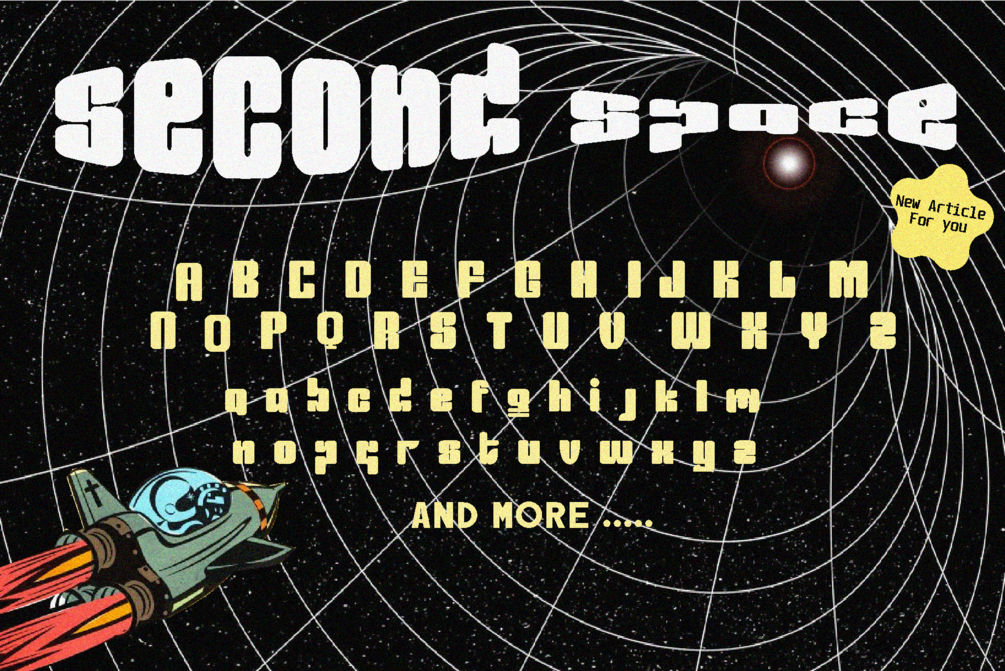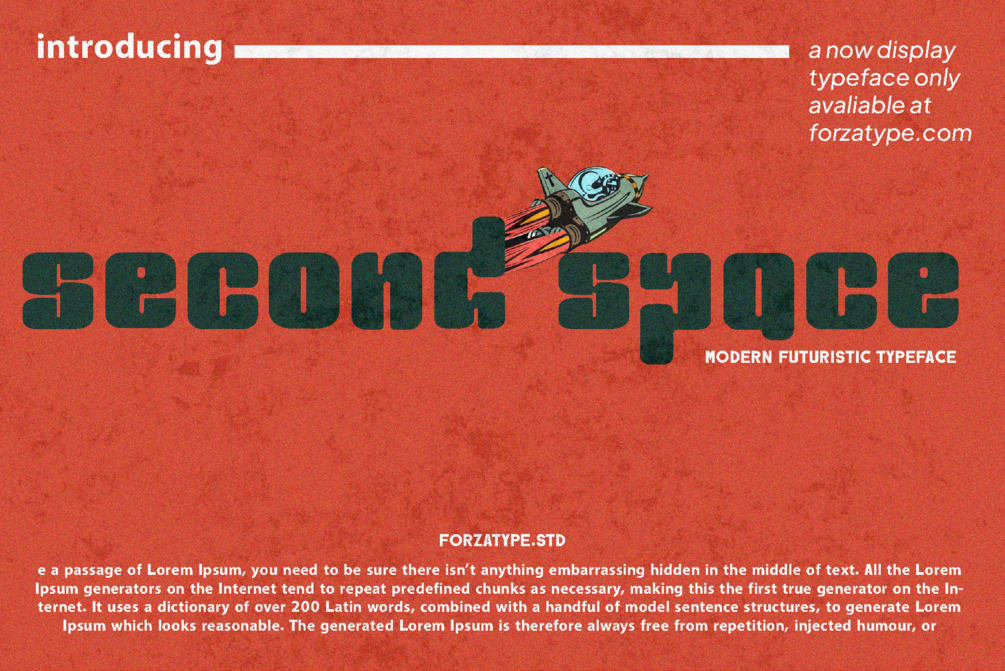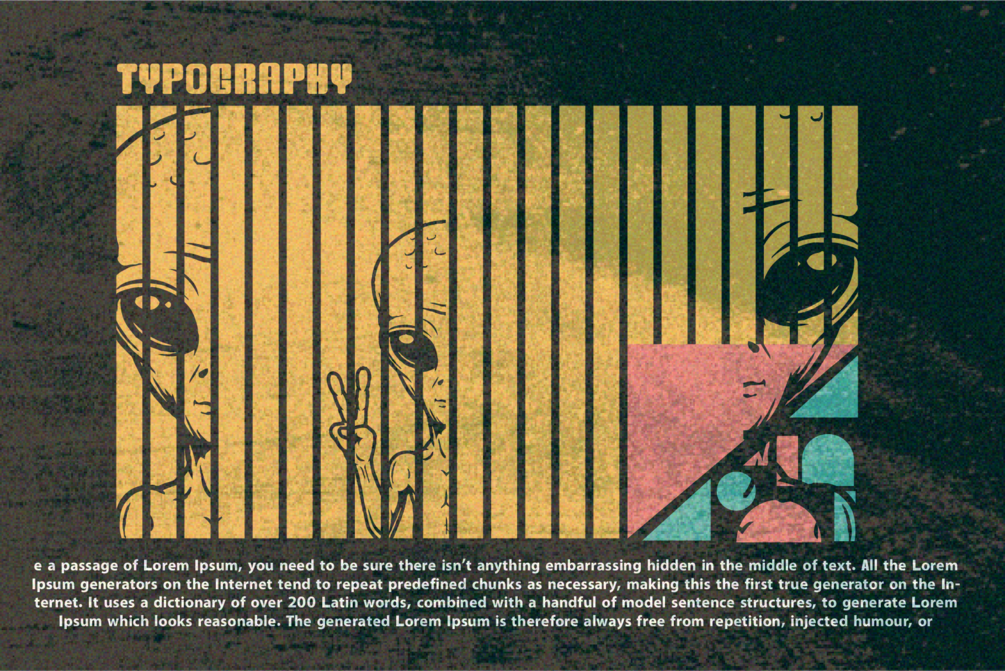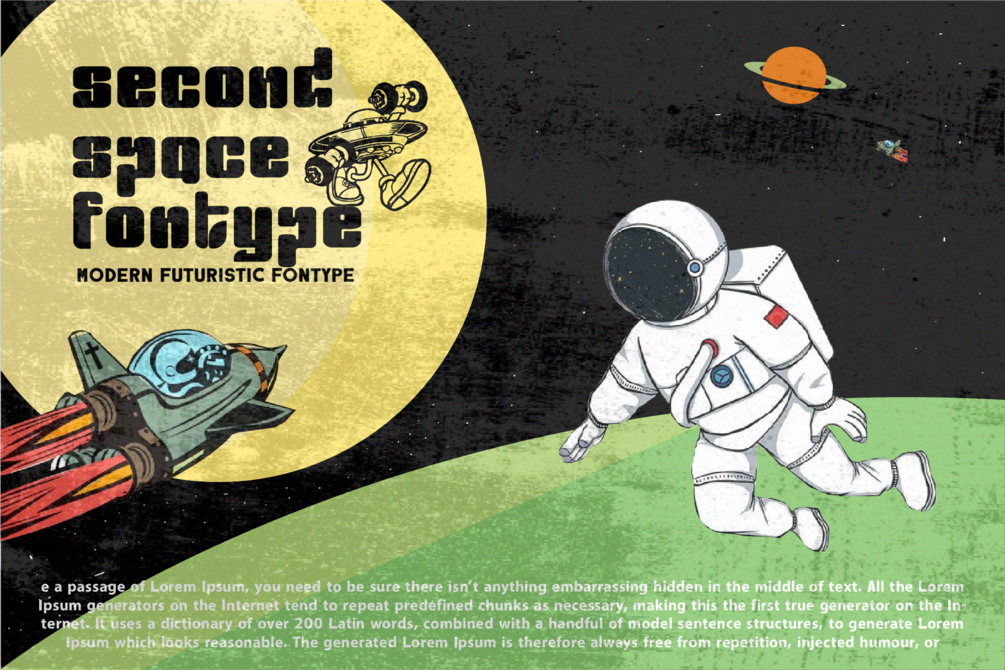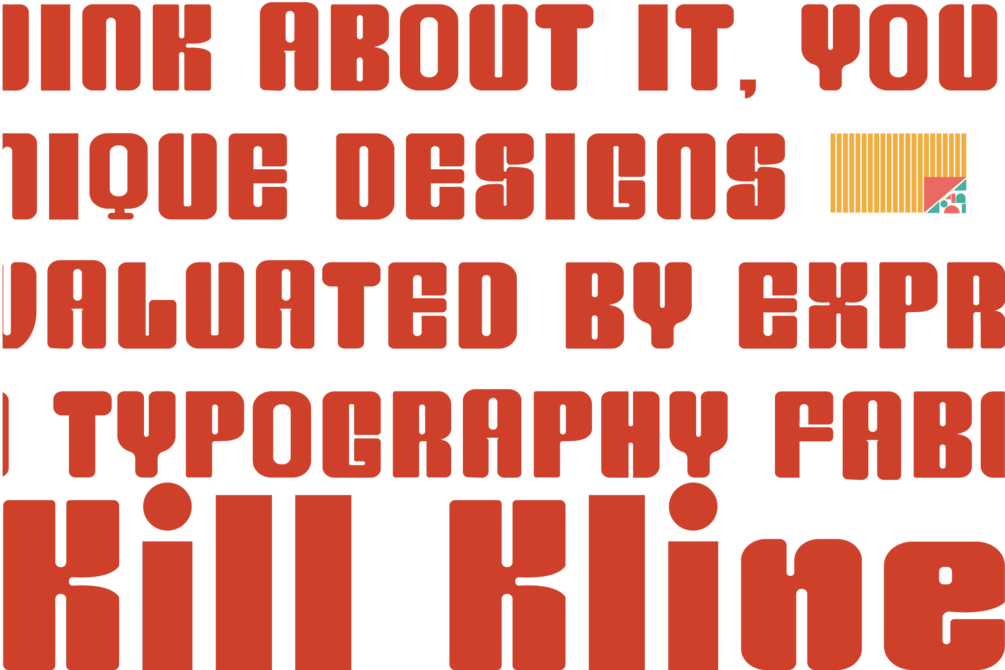
second space font
second space font creates a futuristic, high-tech atmosphere and style. It looks great as header and text both. Use it in your projects in areas such as robots & androids, high tech, future, virtual reality, space, sports and many others.